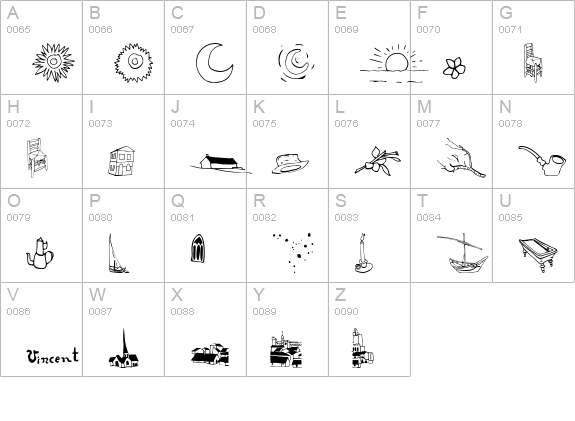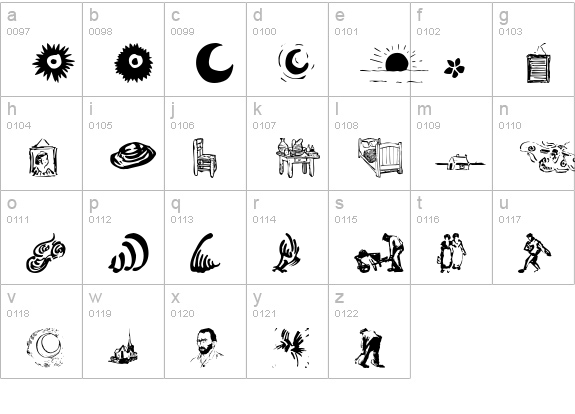
P22Vincent Extras Font Details
P22Vincent Extras font is a captivating and versatile typeface that adds a touch of elegance and creativity to any design project. With its intricate details and unique letterforms, this font offers a wide range of decorative elements that can elevate your designs to new heights. From ornate borders and frames to delicate flourishes and embellishments, P22Vincent Extras font provides endless possibilities for adding a touch of sophistication to invitations, posters, logos, and more. Whether you're looking to create a vintage-inspired design or add a touch of whimsy to your project, this font has it all. What makes P22Vincent Extras font even more appealing is that it is available for free download at FontsMarket.com. This means that you can easily access this incredible font without breaking the bank. With just a few clicks, you can enhance your designs and make them truly stand out. So, why wait? Download P22Vincent Extras font today and unleash your creativity like never before. With its stunning decorative elements and the freedom to use it in your projects, this font is a must-have for any designer or creative professional. Don't miss out on this amazing opportunity to elevate your designs with P22Vincent Extras font.